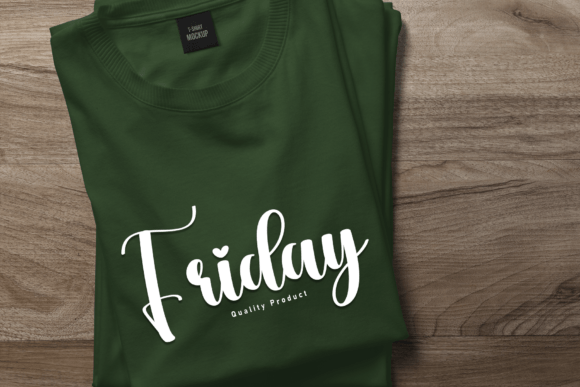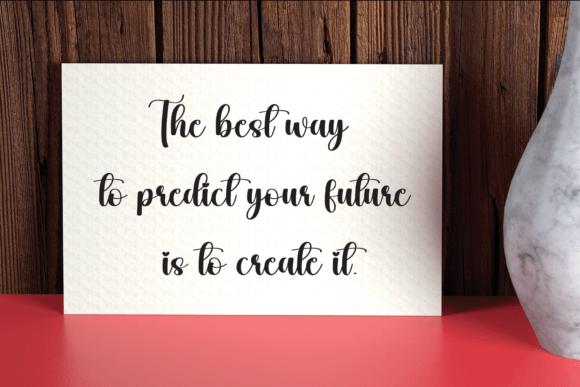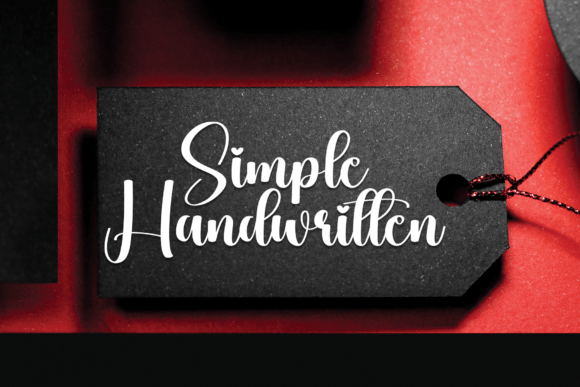
Introduction to Night Camping Font
Night Camping is a stylish and incredibly elegant script font.
Key Features of Night Camping Font
Why Choose Night Camping Font?
Night Camping Font offers exceptional quality and versatility, making it a valuable addition to your design toolkit. Whether you’re creating for personal projects or commercial use, Night Camping Font delivers professional results.